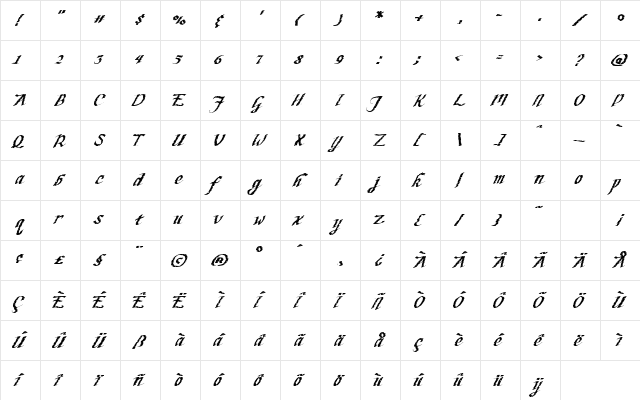
HW, Script- AppleSeed Regular
Design Context for HW, Script- AppleSeed Typeface
HW, Script- AppleSeed brings a calligraphic fluidity to the page — its connecting strokes and expressive curves give it an unmistakably human quality.
Font Pairing: Combine HW, Script- AppleSeed with a simple geometric sans for maximum contrast — the tension between flowing curves and clean structure is a classic typographic pairing.